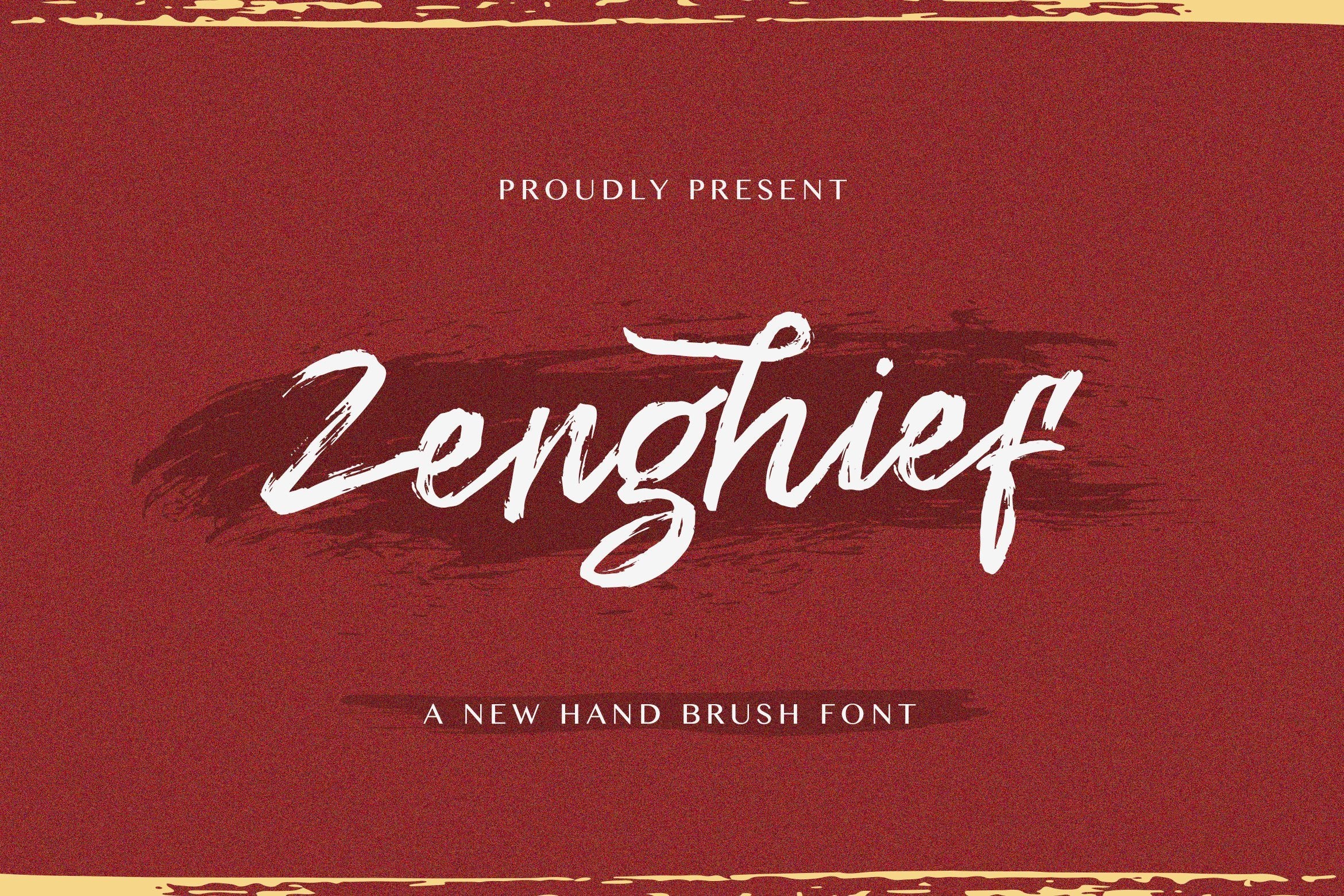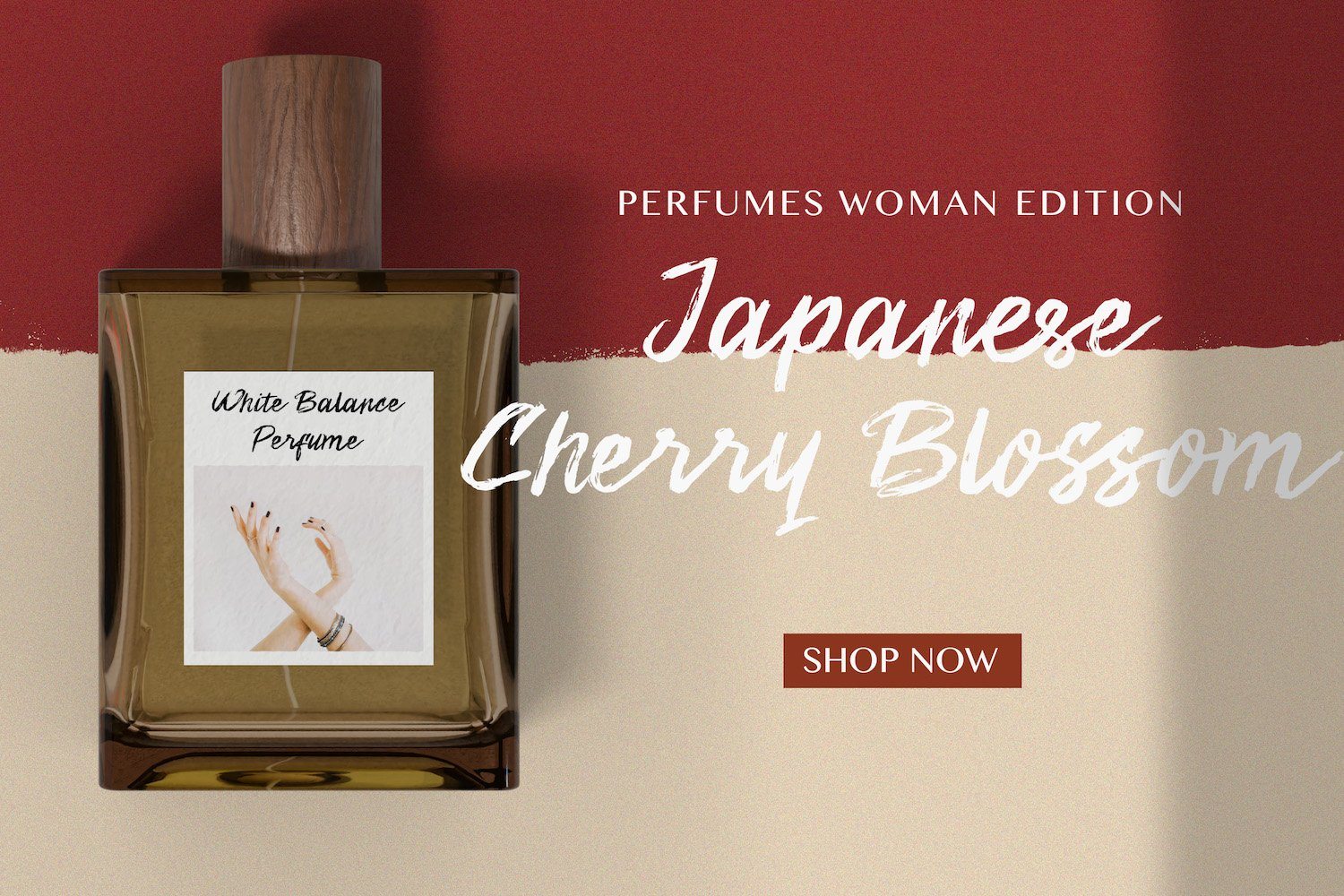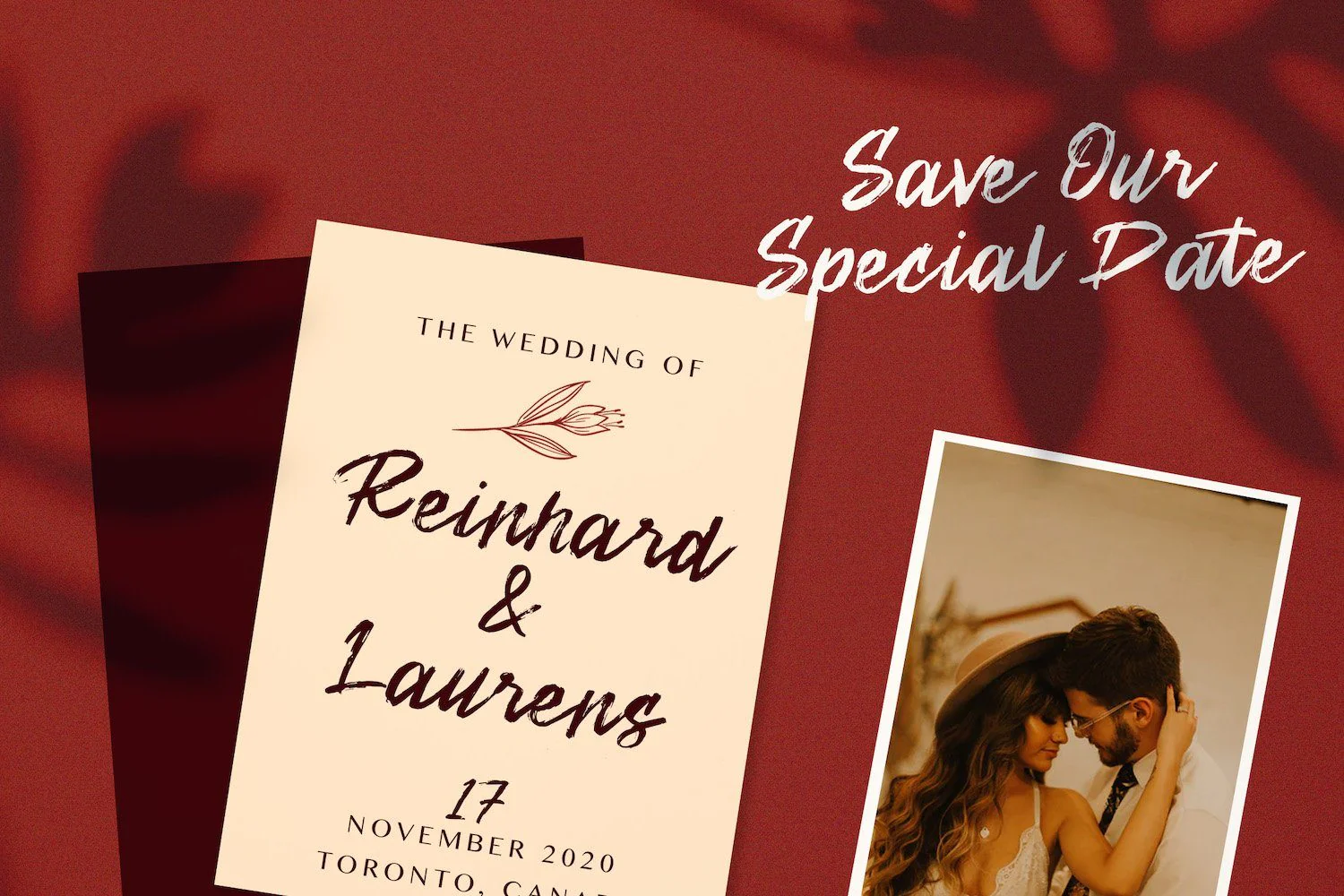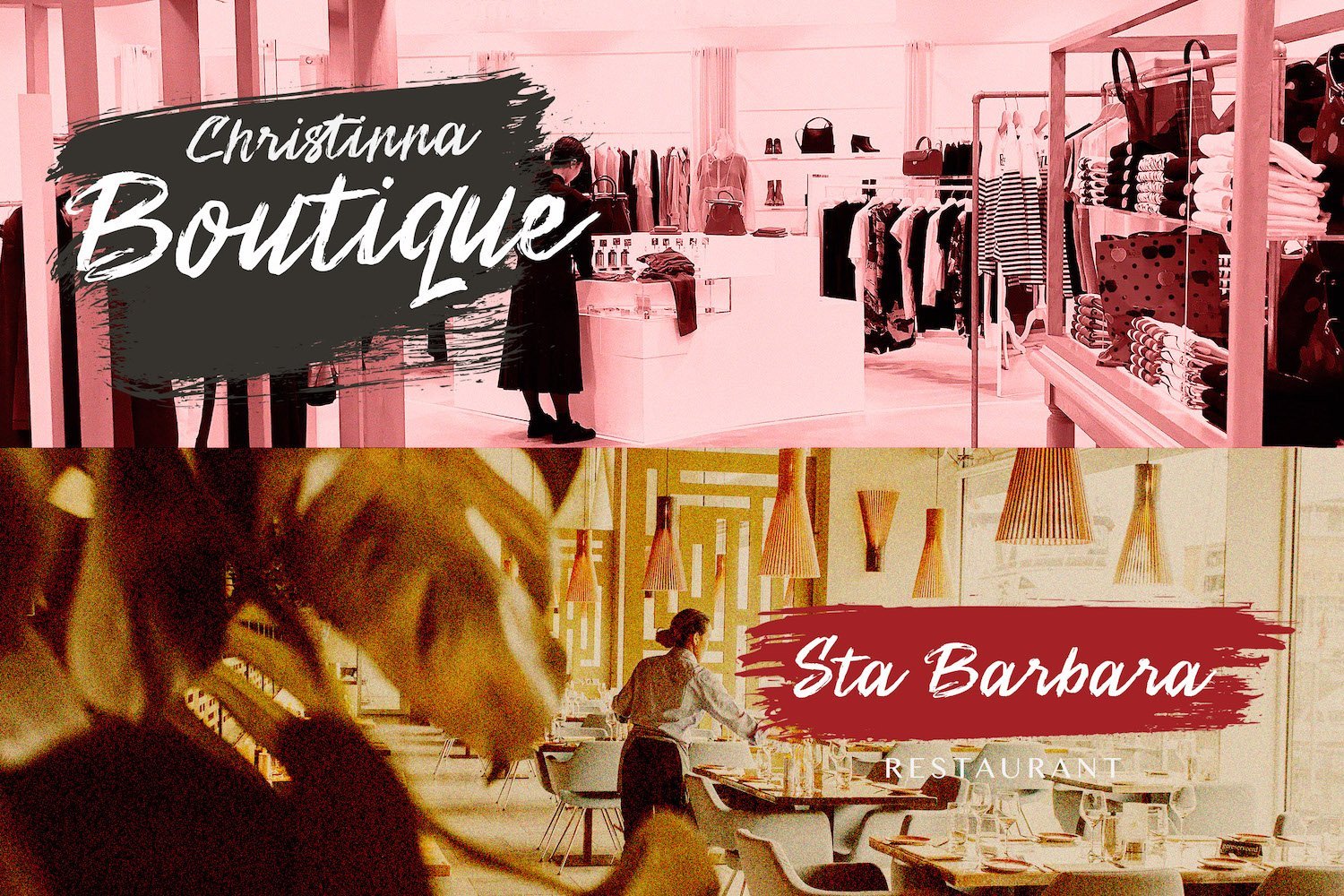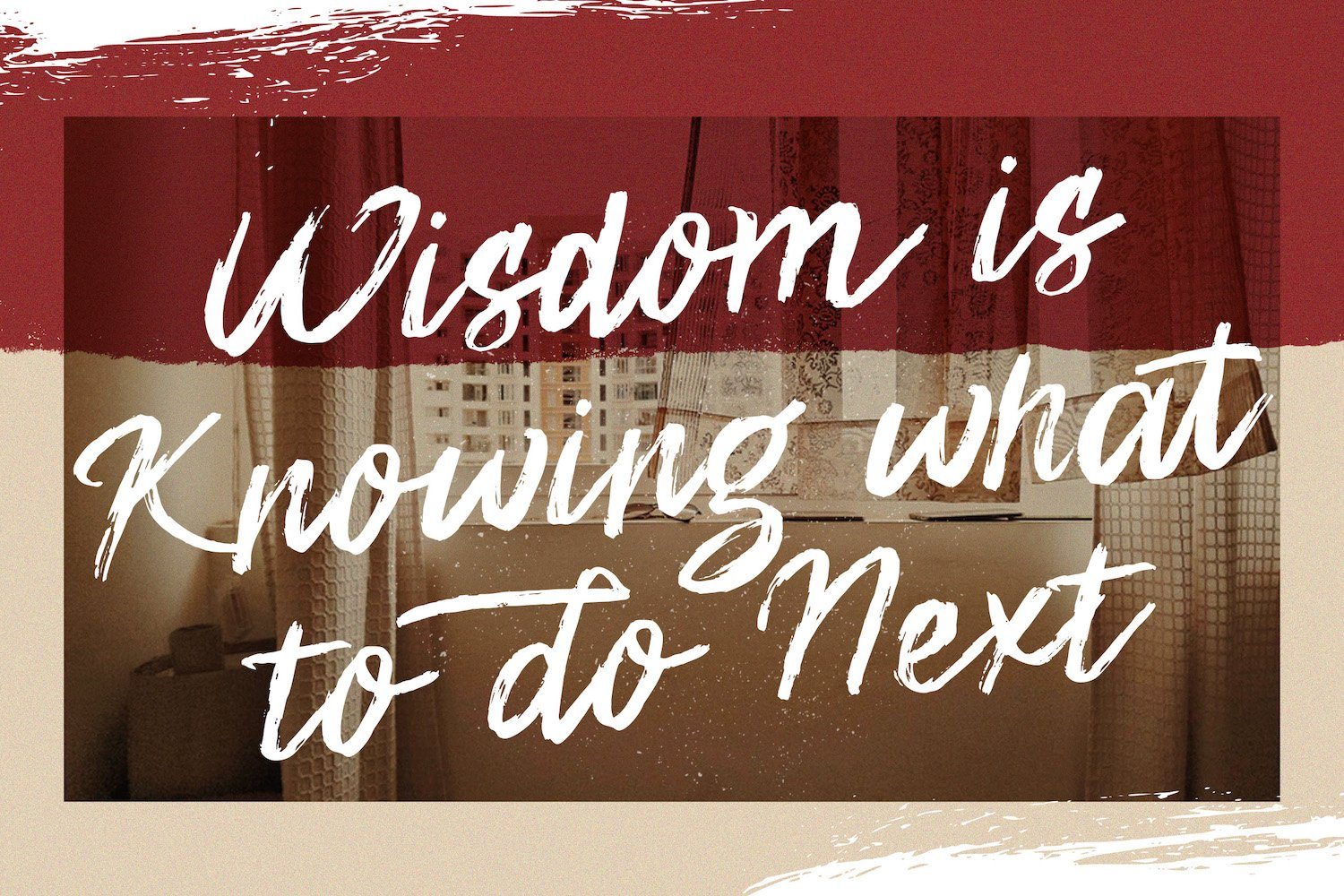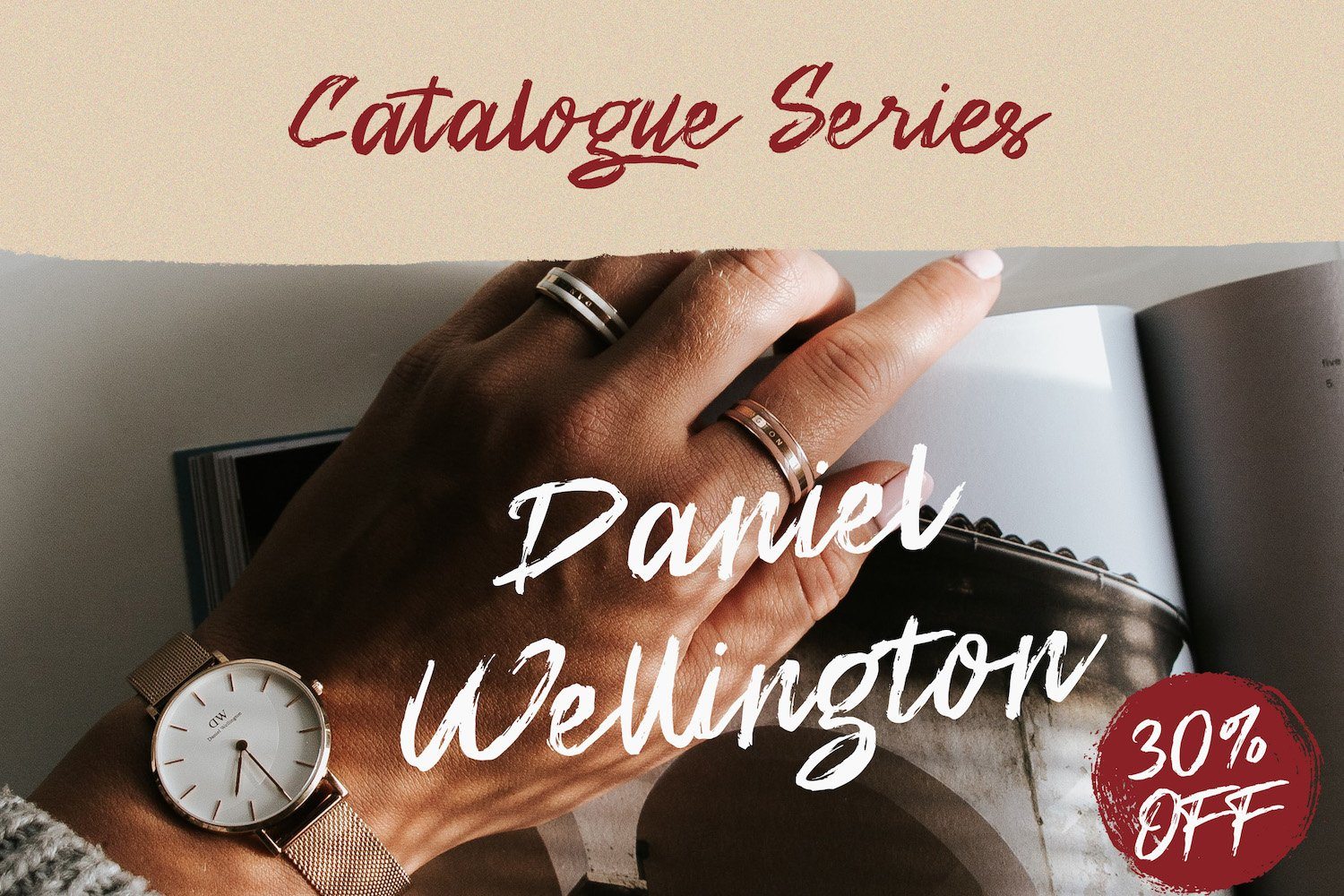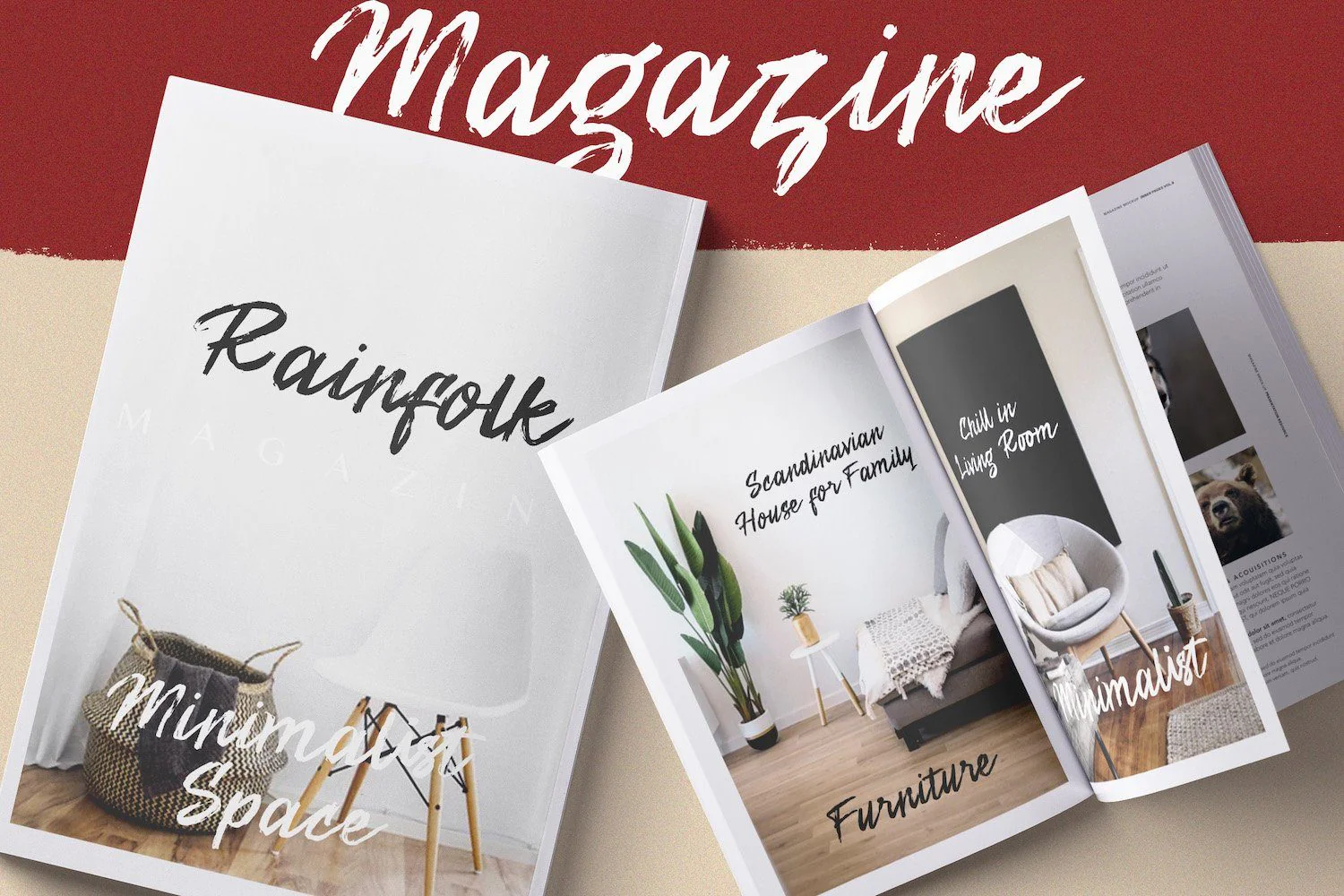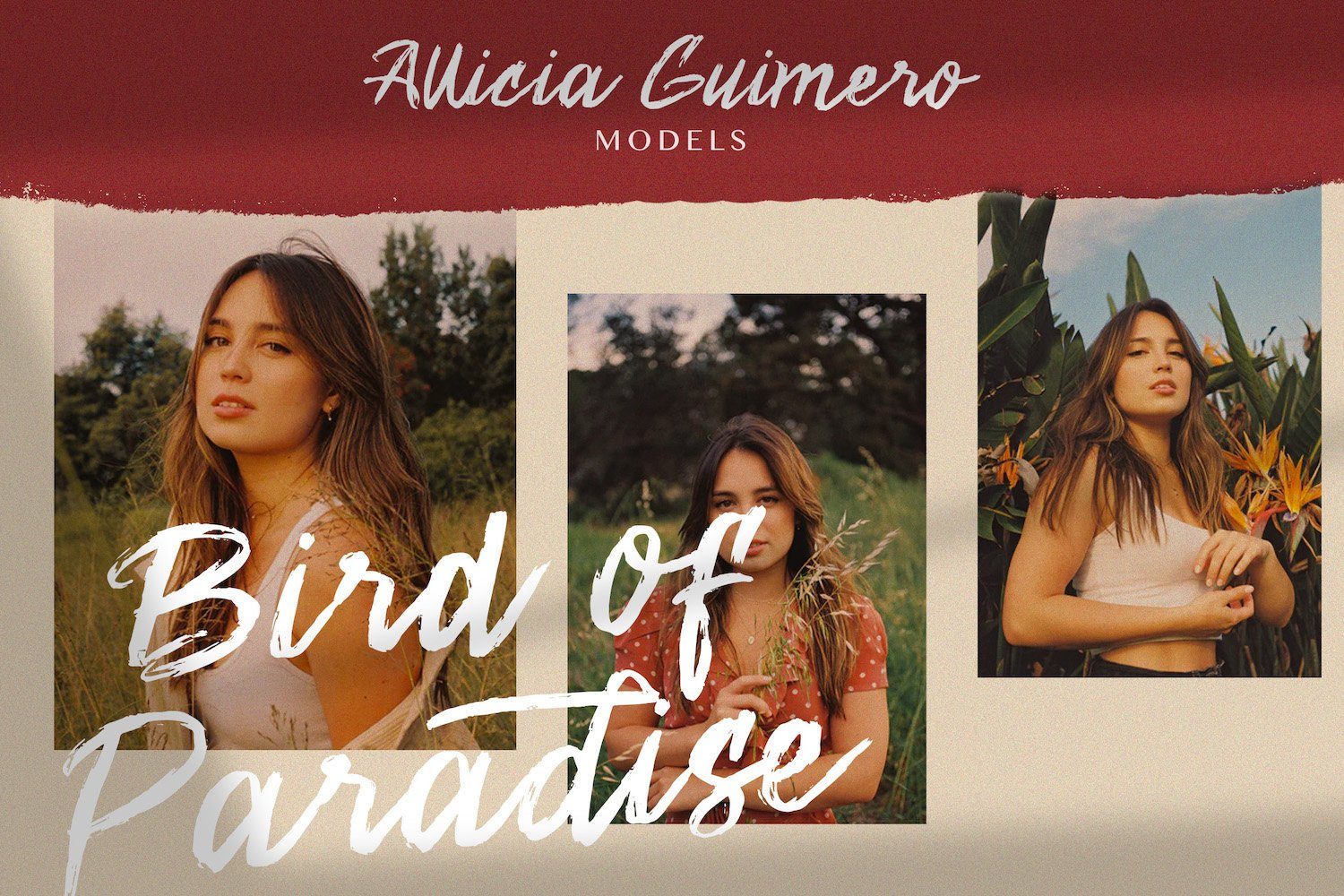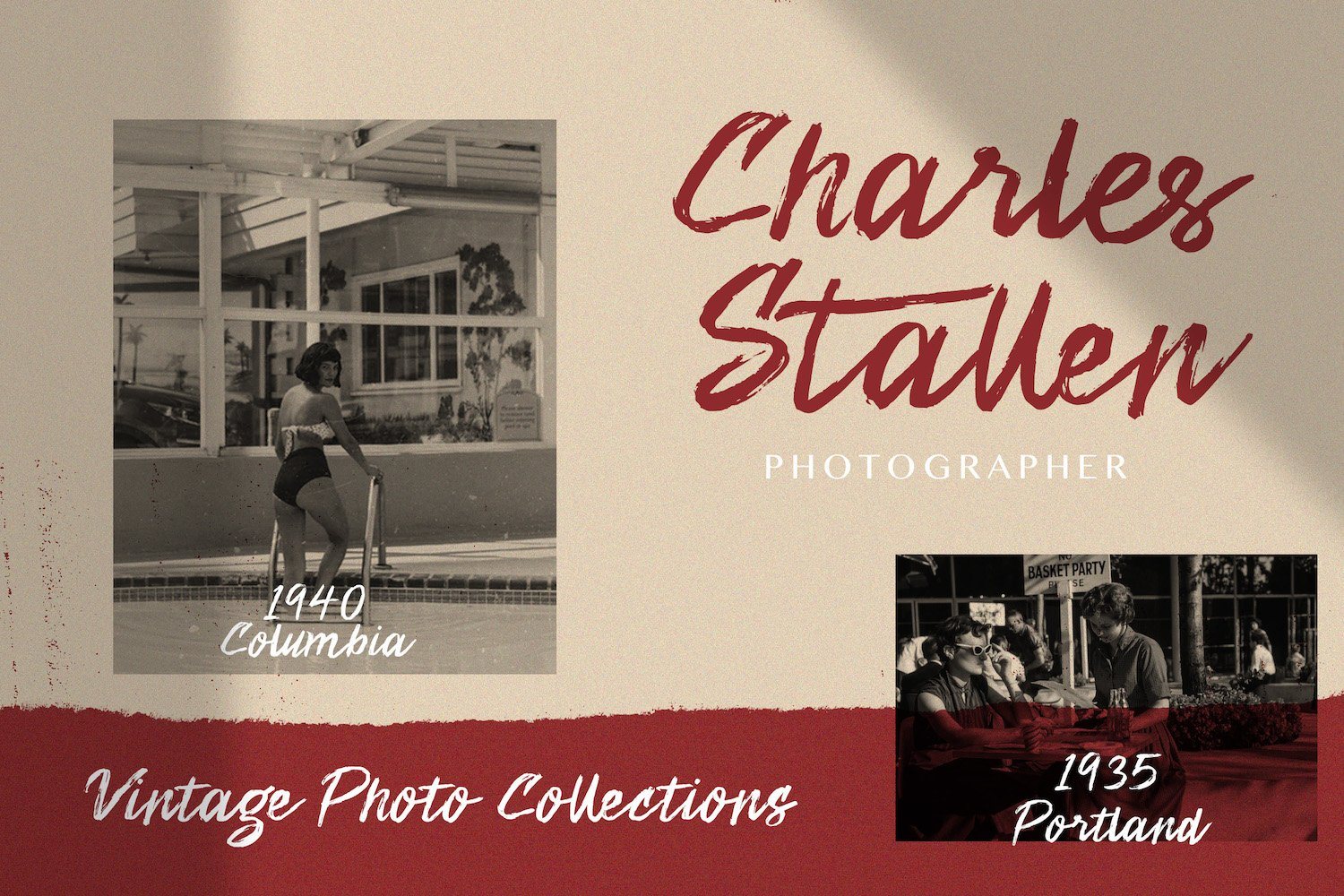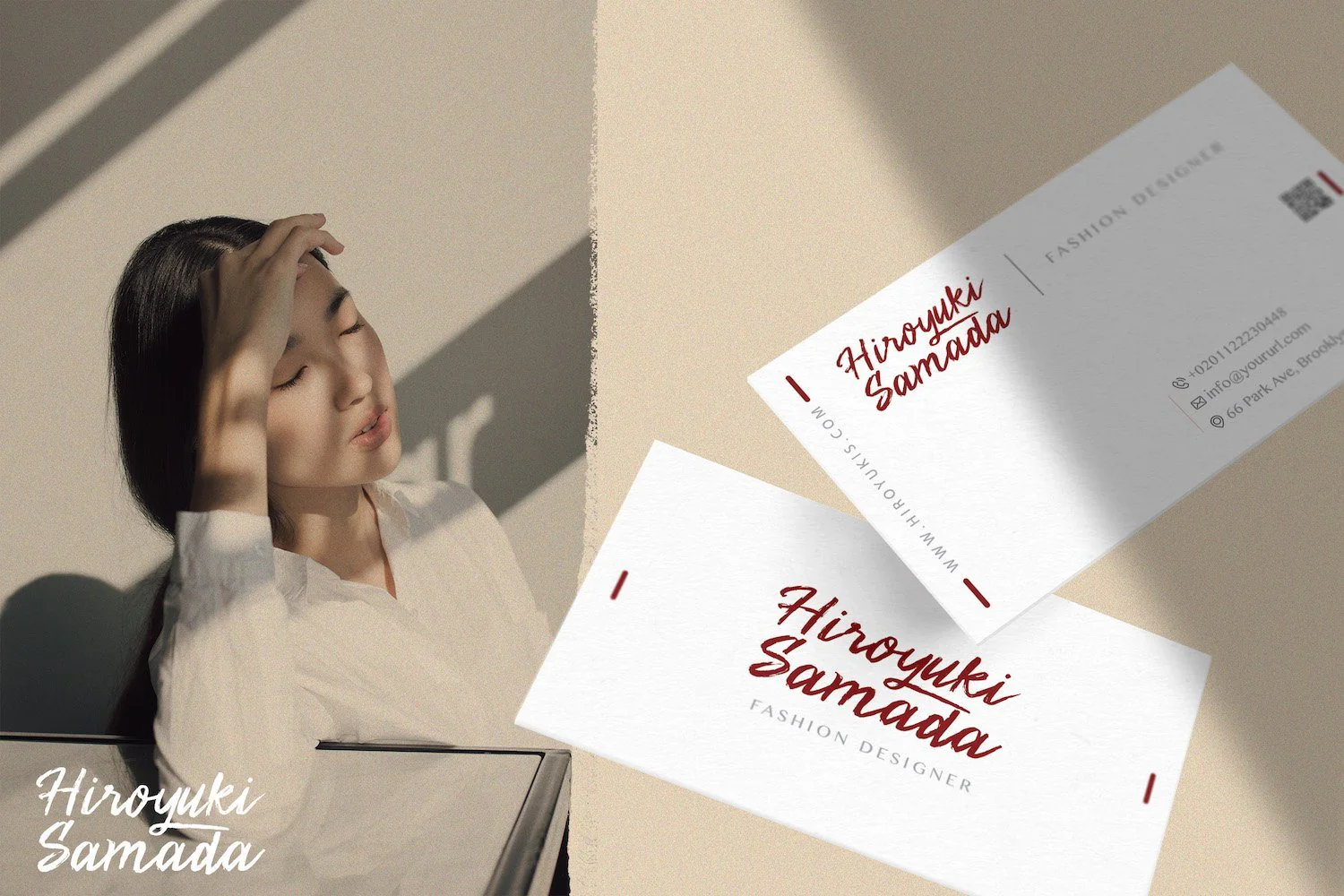
Zenghief - Hand Brush Font
Introducing Zenghief - Hand Brush Font
Zenghief is a script font with Modern hand brush style. The Zenghief font made with digital hand brush pen strokes that making this font look authentic and unique concept. This font is perfect for fashion brand, wedding invitation, business card, logo brand, Japanese font style, and then calligraphy.
Introducing Zenghief - Hand Brush Font
Zenghief is a script font with Modern hand brush style. The Zenghief font made with digital hand brush pen strokes that making this font look authentic and unique concept. This font is perfect for fashion brand, wedding invitation, business card, logo brand, Japanese font style, and then calligraphy.